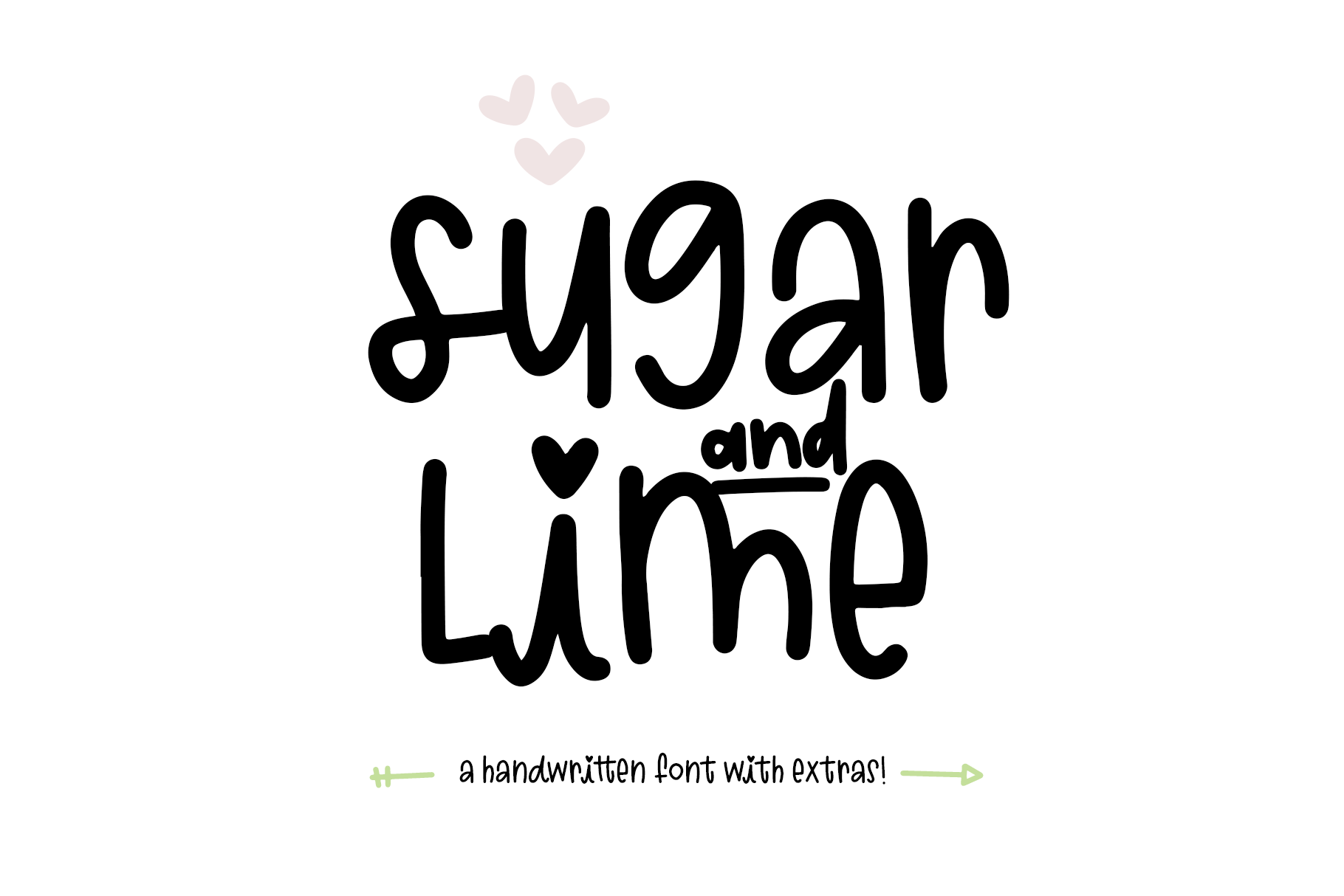
Sugar & Lime - A Handwritten Font
Sugar and Lime is a quirky handwritten font.
It is printed and easy to read - with a fun twist!
This font is perfect for branding, quotes, kid's designs, blogs, logos, and more!
Most accent characters are included.